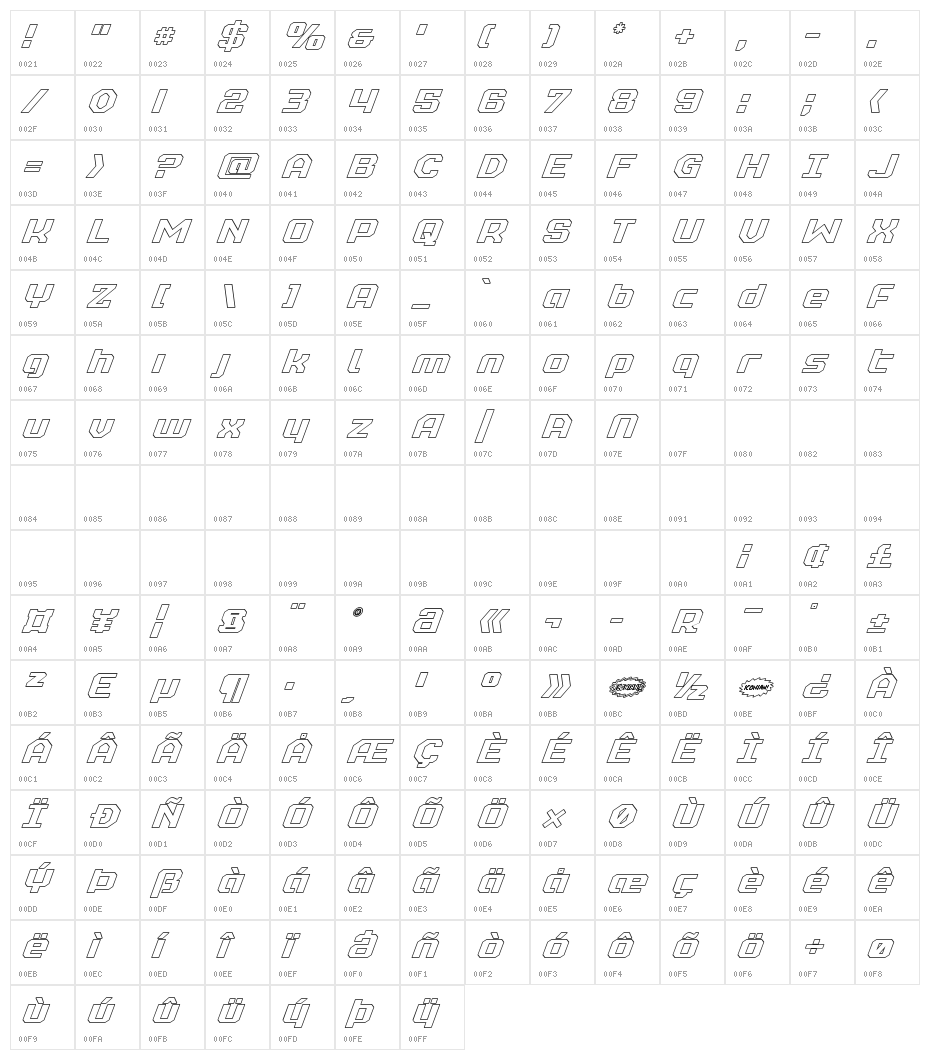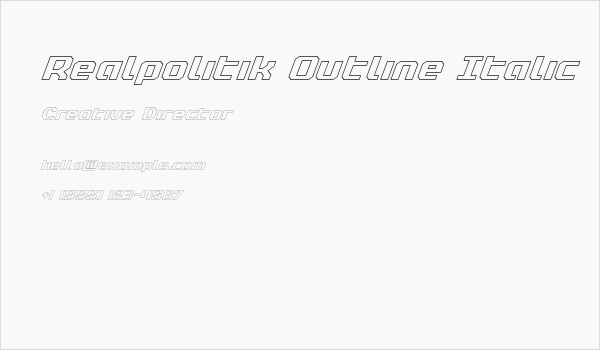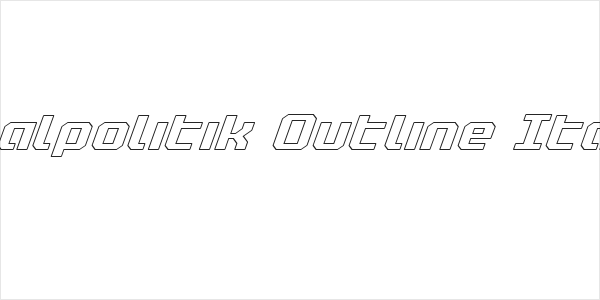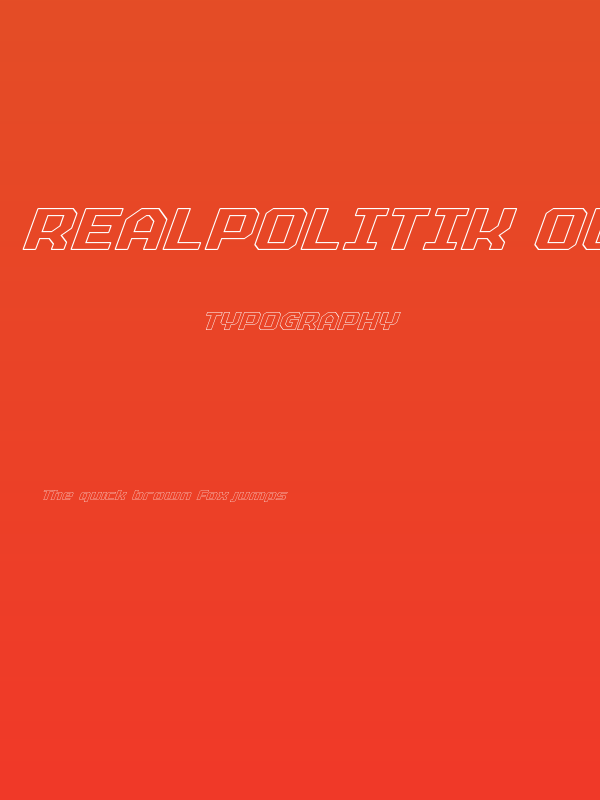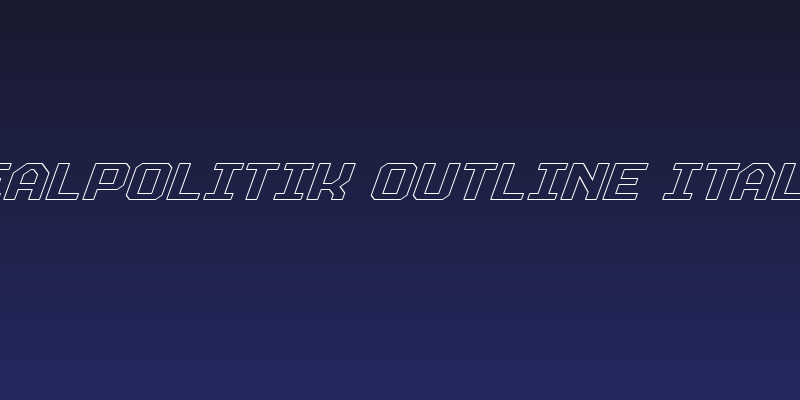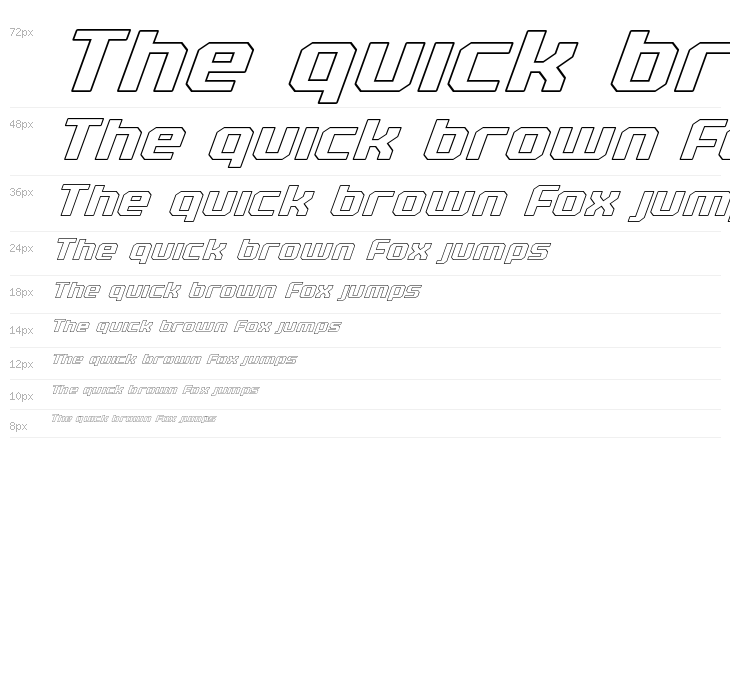
Realpolitik Outline Italic Font
Realpolitik Outline Italic Description
This font features a bold, geometric outline style with a distinct italic slant, giving it a dynamic and modern appearance. The uppercase and lowercase letters maintain a consistent structure, with sharp angles and clean lines that create a sense of movement. The numerals and special characters follow the same design principles, ensuring uniformity across all glyphs. The outline effect adds a unique dimension, making the font stand out in various applications. Its boldness and italic nature suggest a forward-thinking and innovative feel, suitable for contemporary design projects.
| Proposed Projects | Ideal for branding, headlines, posters, and digital media where a modern and eye-catching font is desired. |